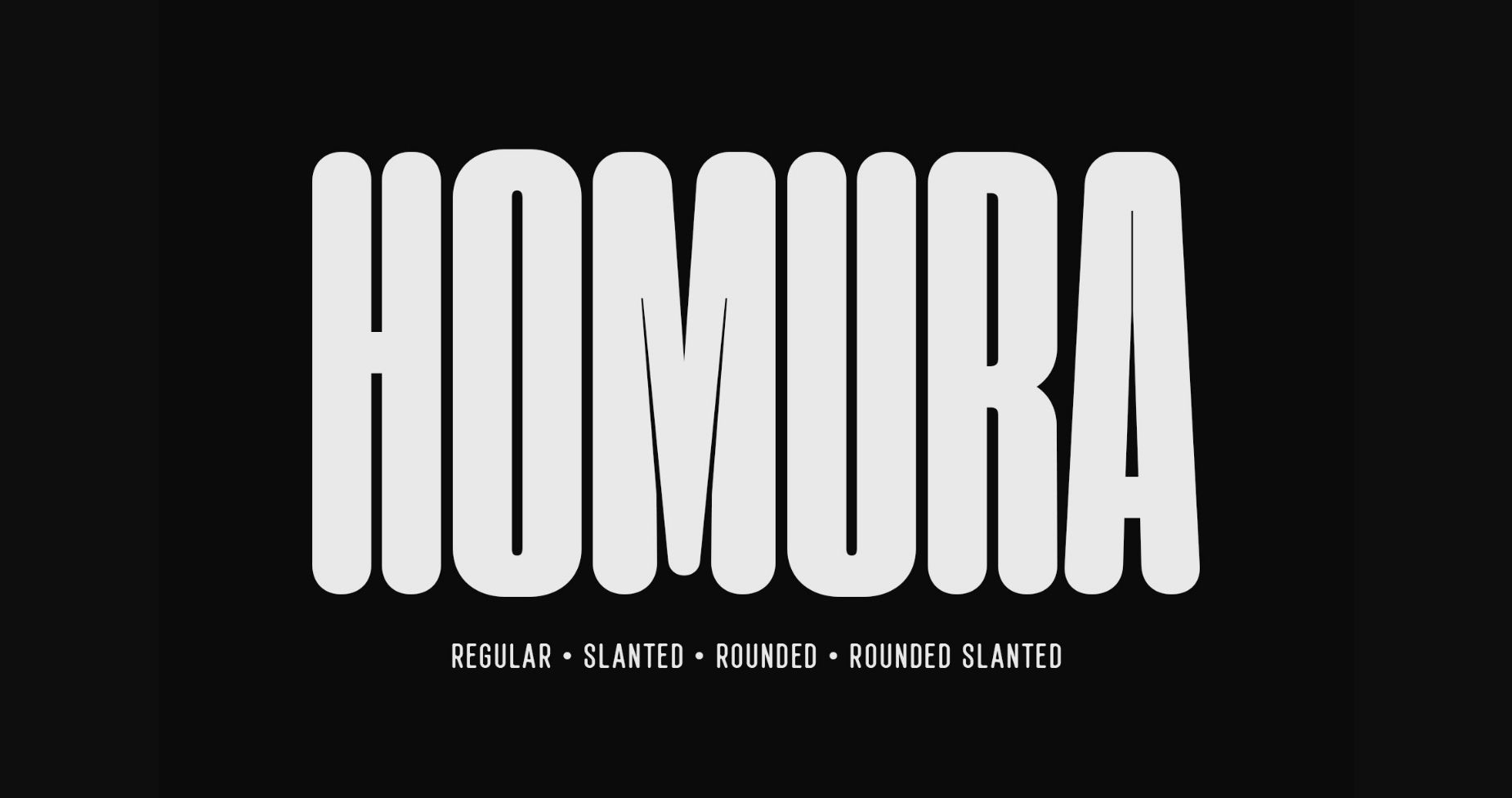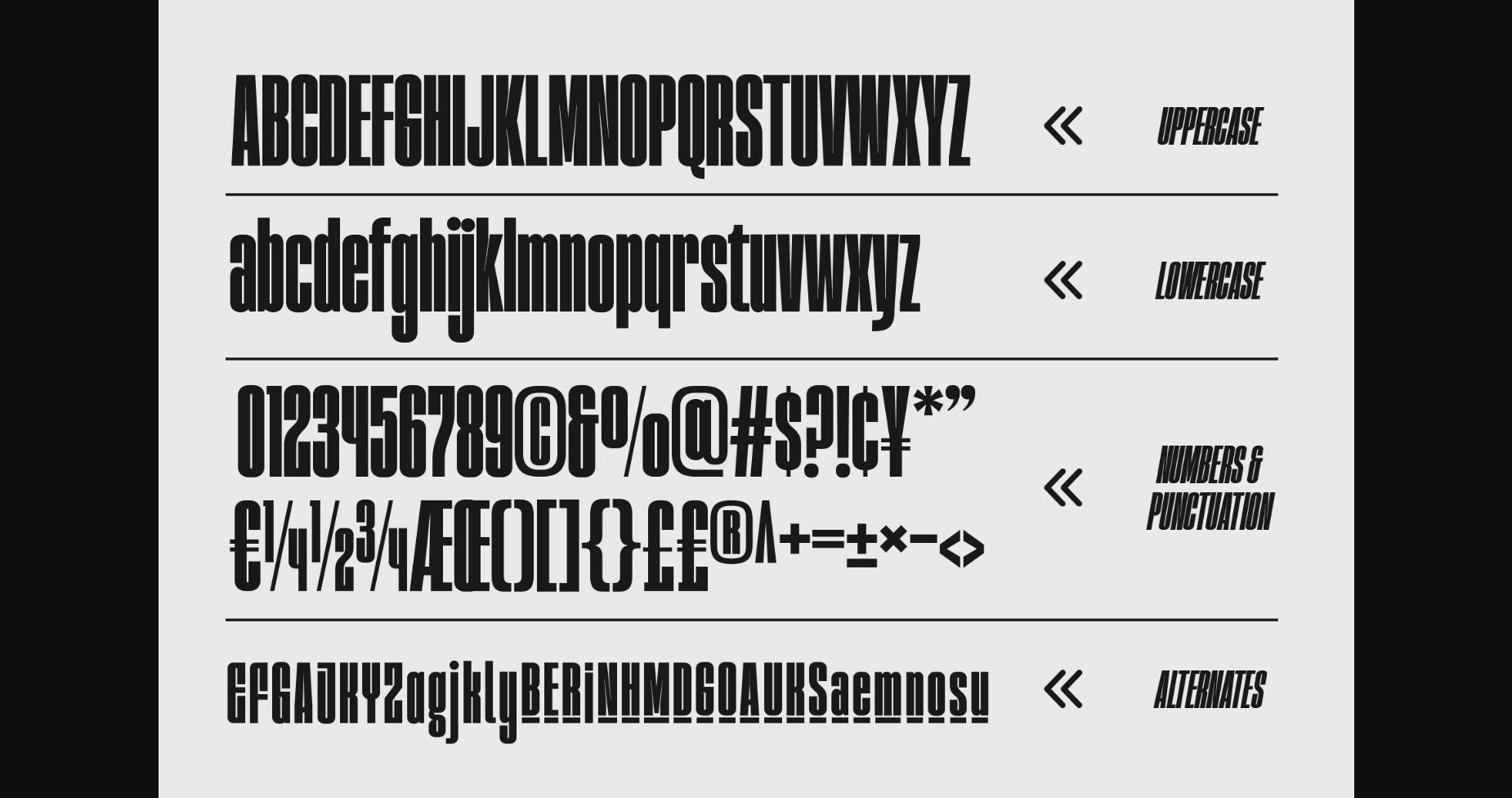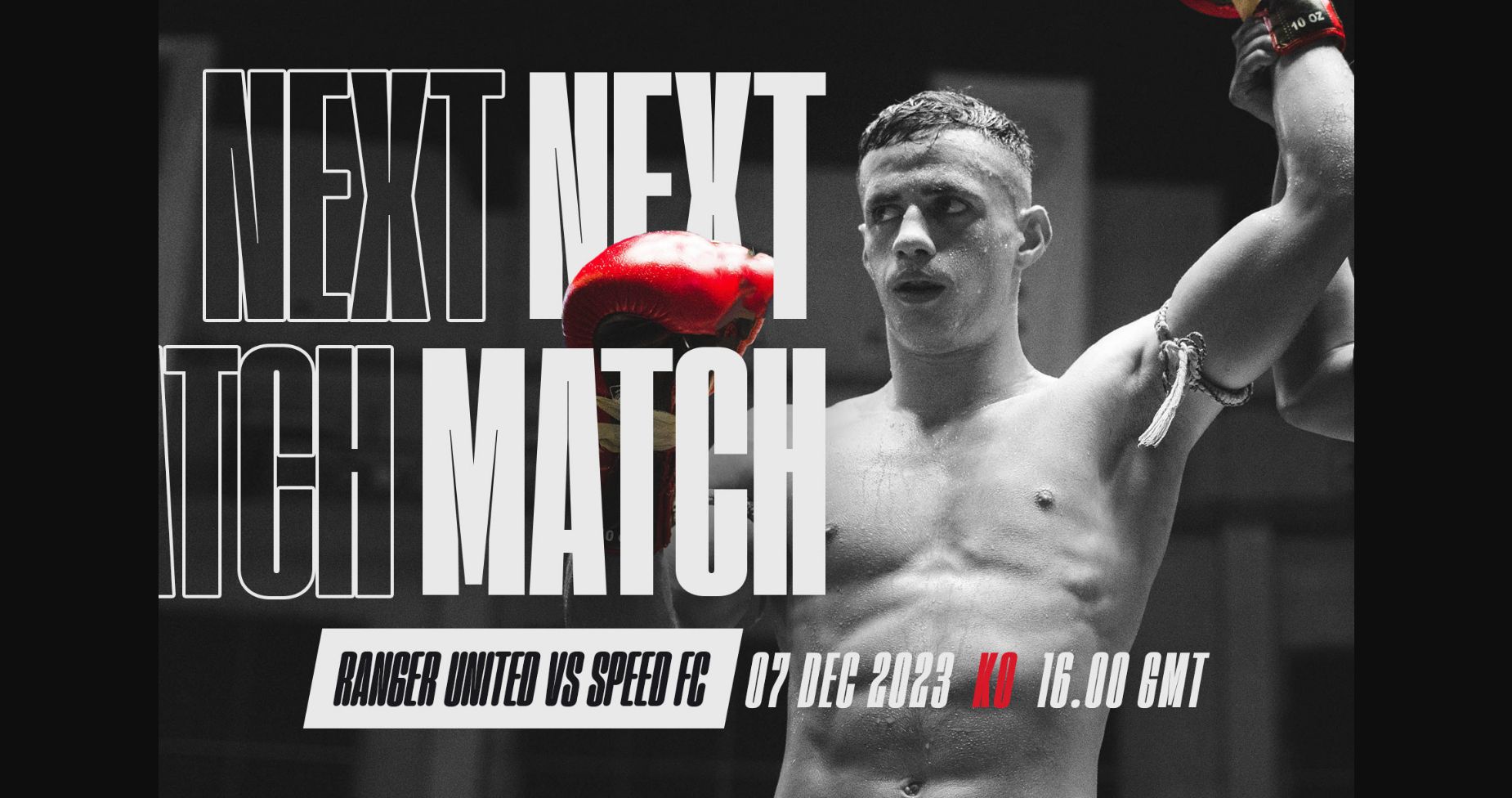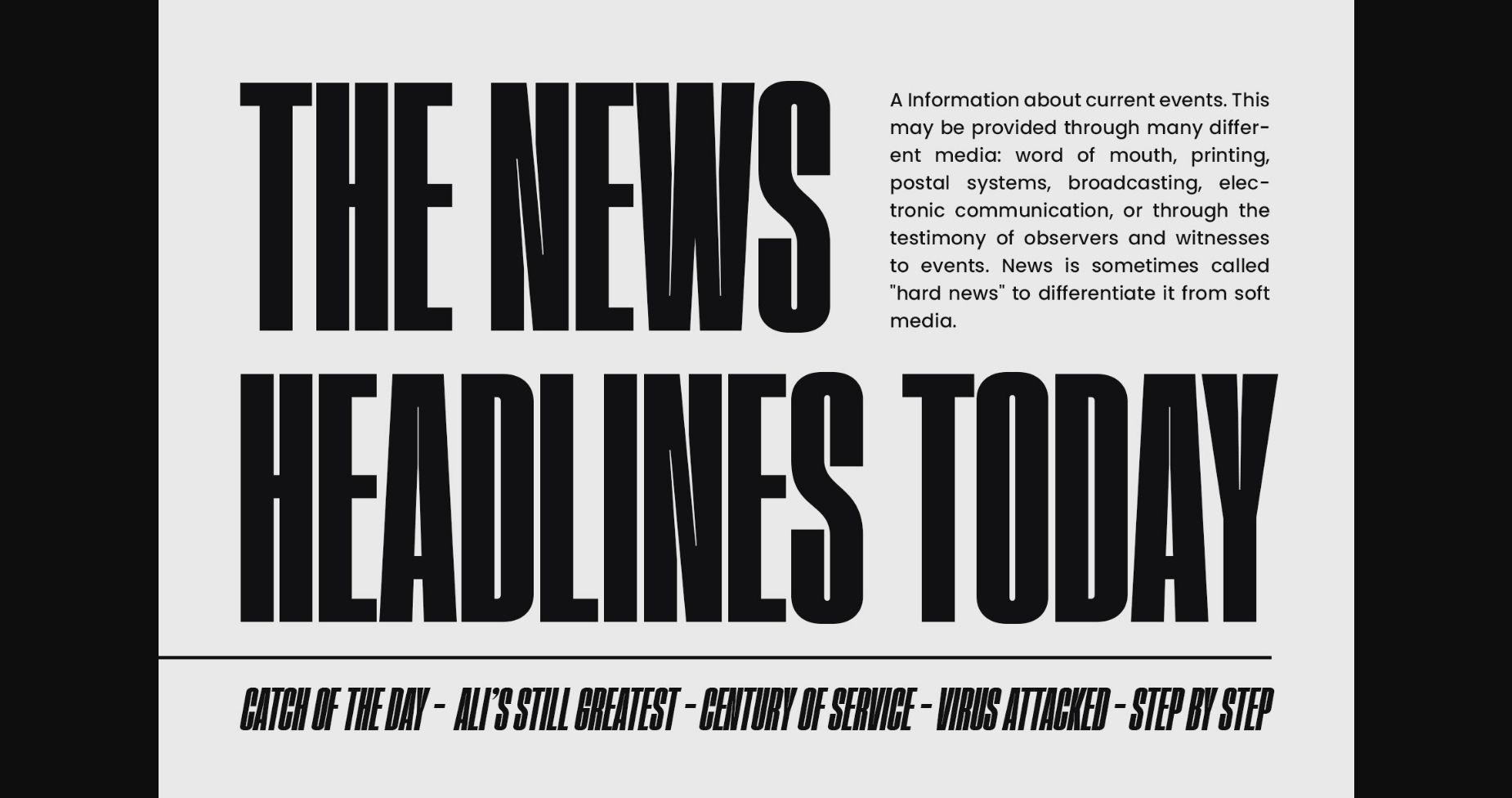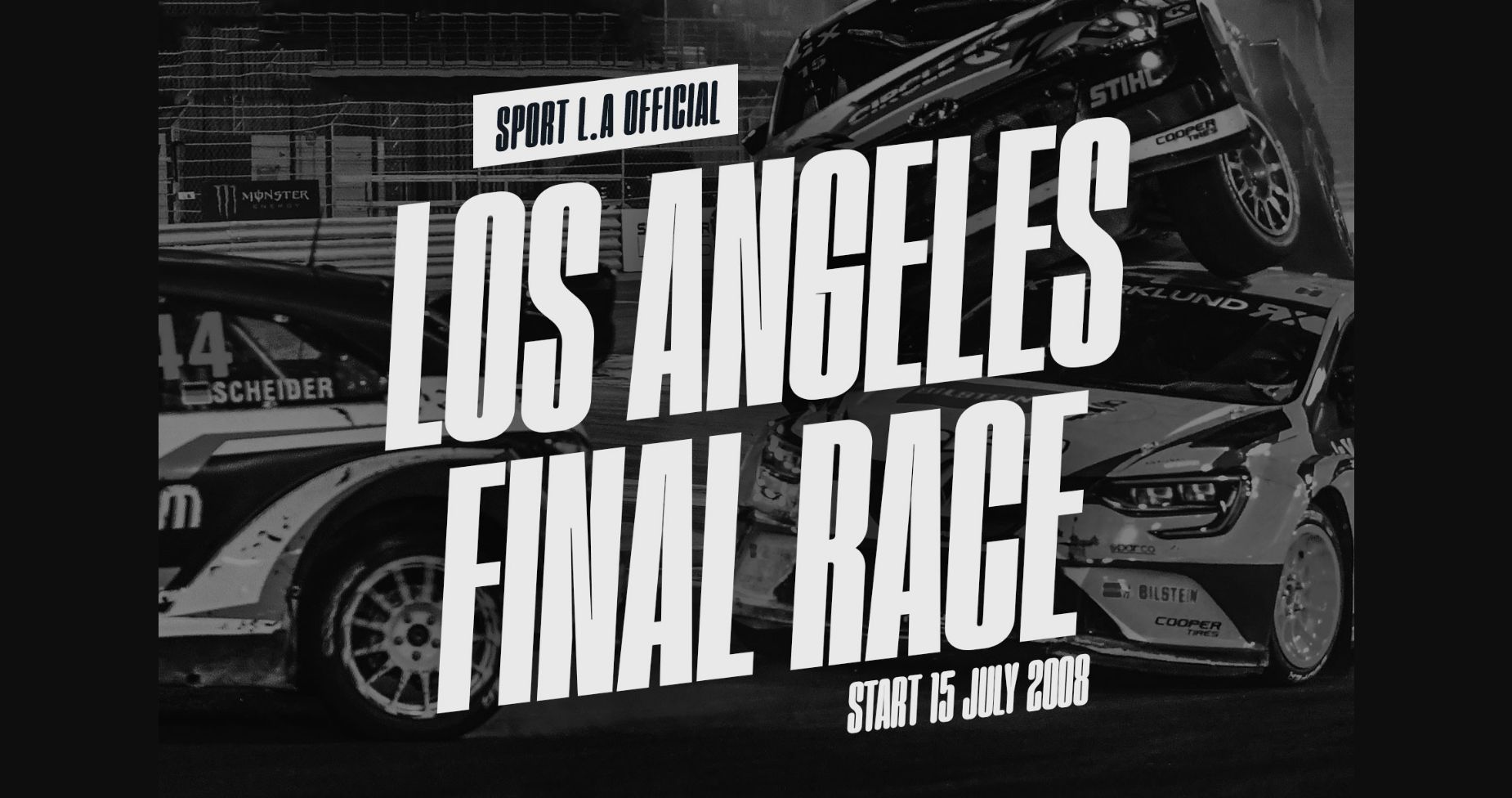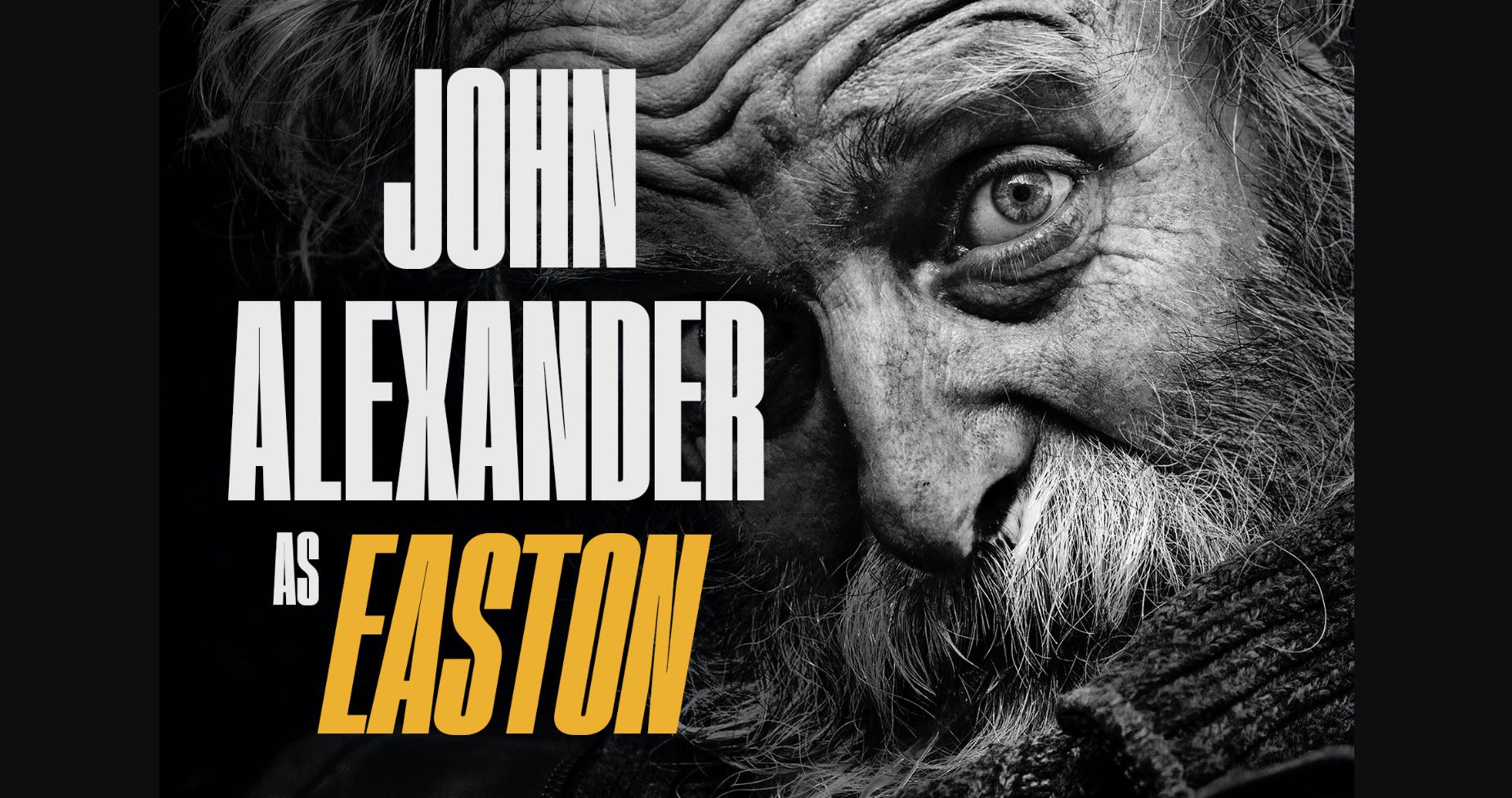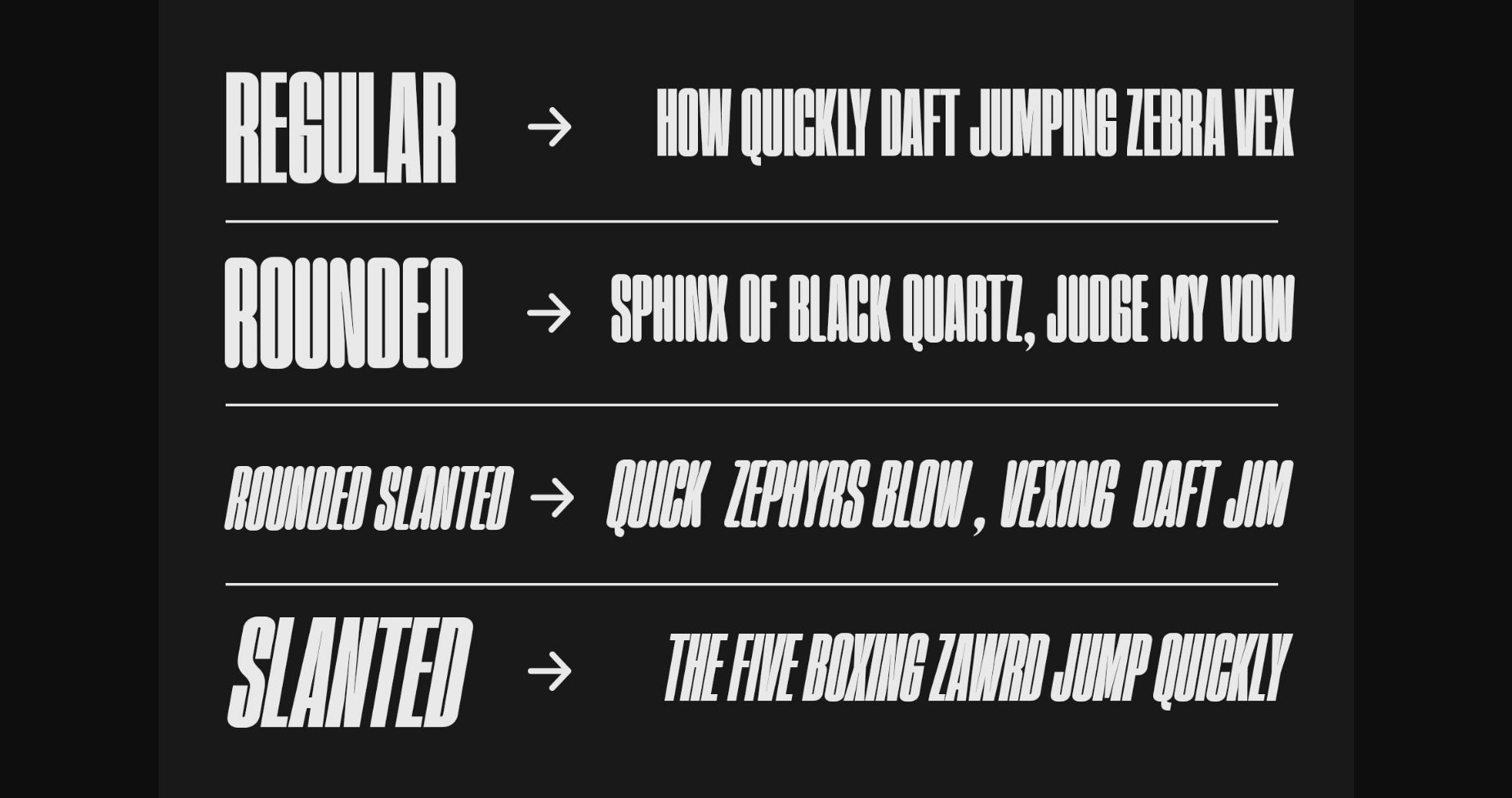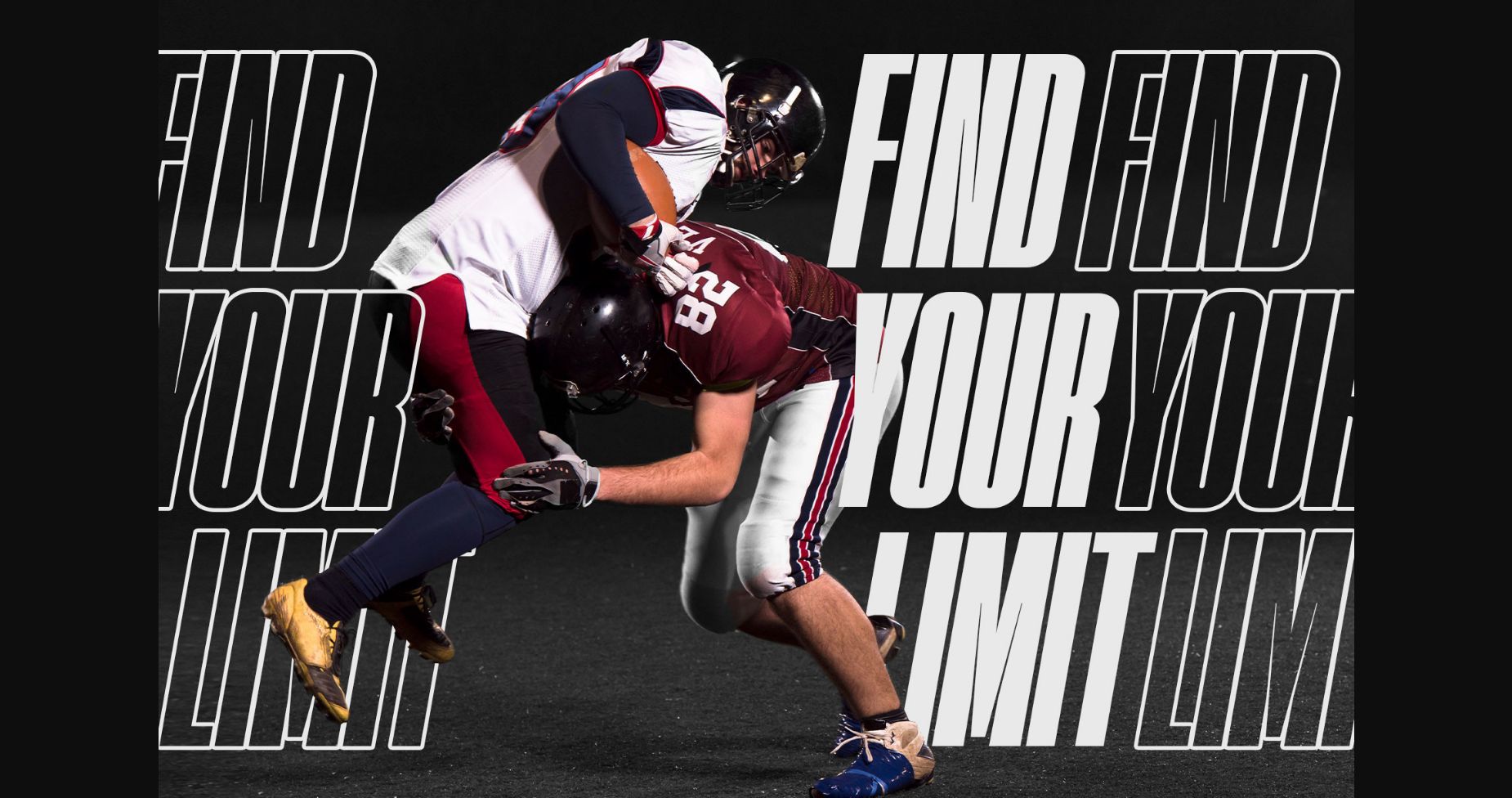
About Homura Font
Homura is a sans-serif display font that is inspired by newspaper headlines and modern typography. This font is condensed, bold, and elegant, with a tight design that includes ink traps in some sharp corners, giving it a fancy, fun, and minimalist impression. Flexible for various design themes.